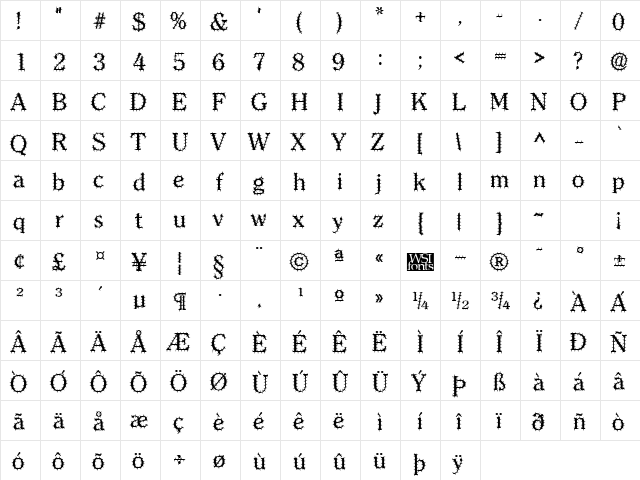
CactusRoman Regular
Design Context for CactusRoman Typeface
CactusRoman is a composed and adaptable typeface that performs quietly and consistently across a wide range of design contexts.